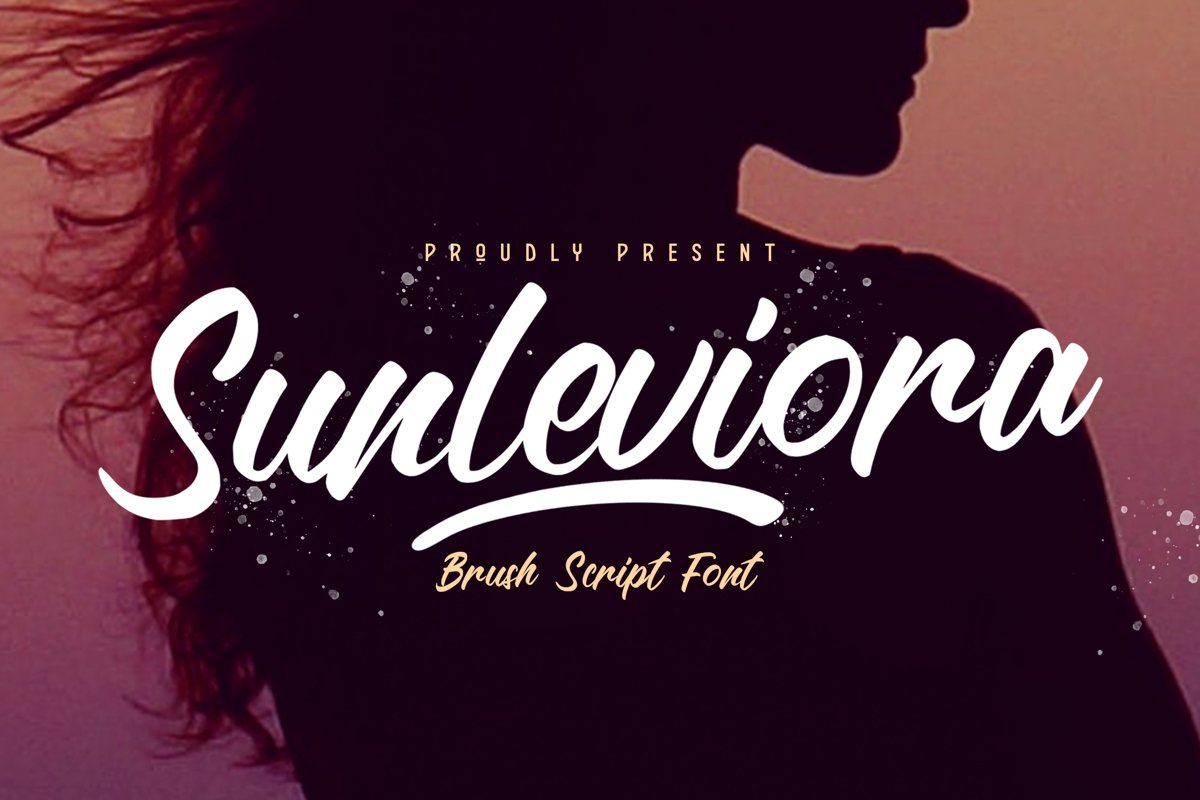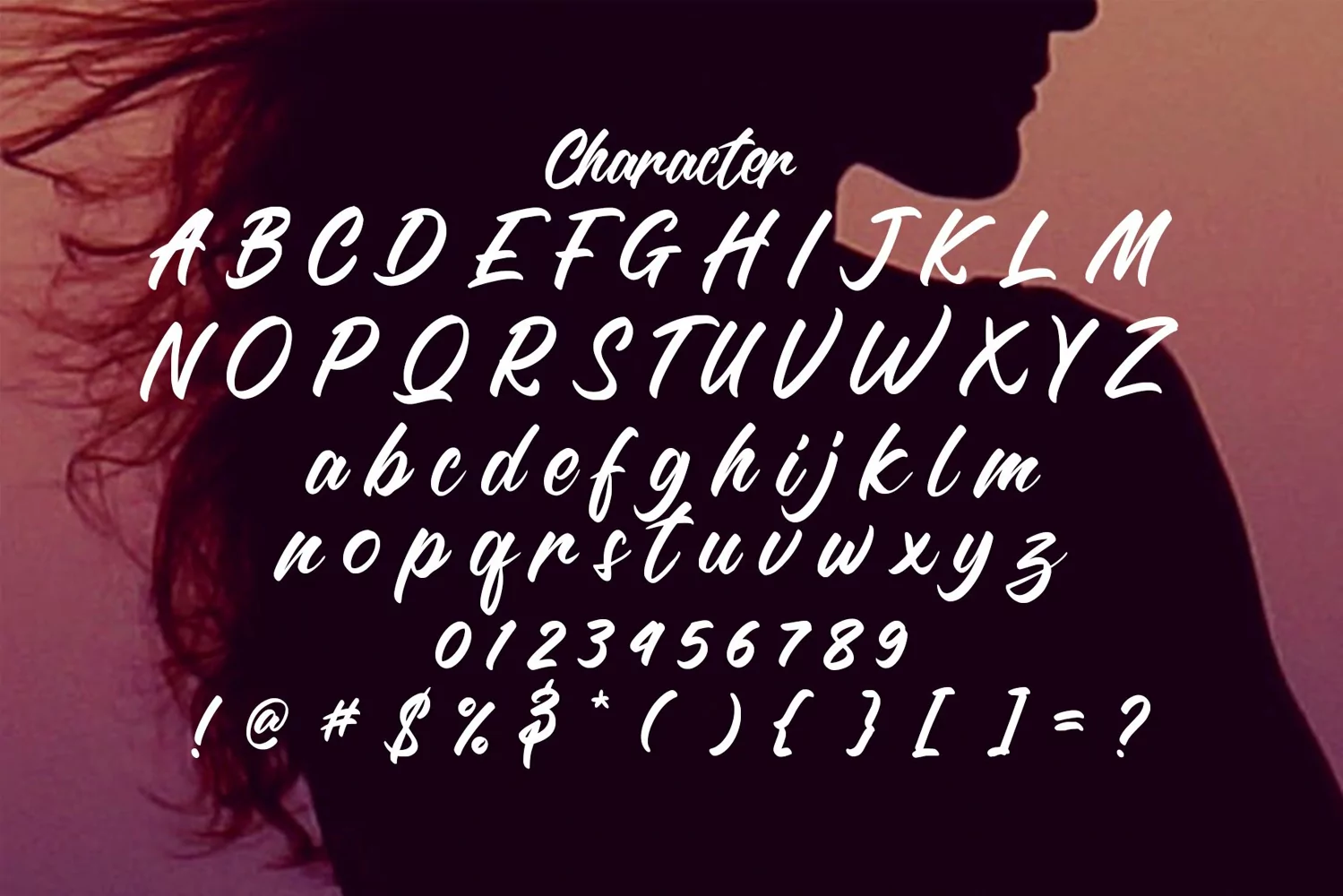
Sunleviora is a script brush typeface. Perfect for display, poster, branding, logo, logotype, cover, header, tittle, business card, packaging, merchandise, pin, wedding and many more.